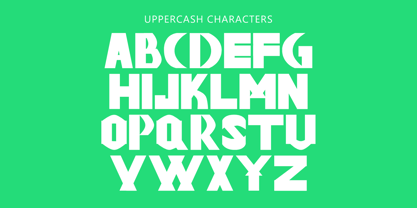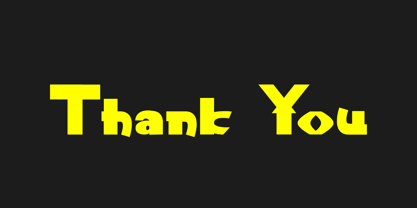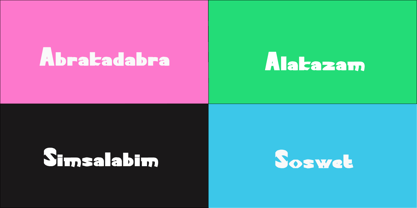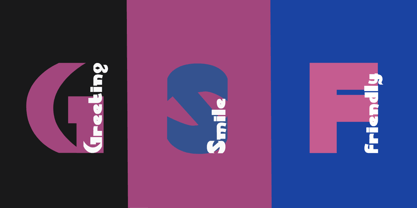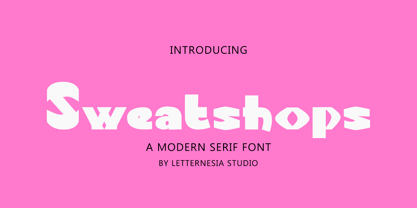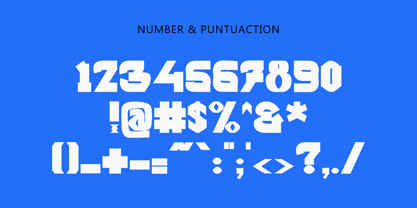
Sweatshops
von Letternesia studio
Die Schriftfamilie Sweatshops wurde von Ta Siyo entworfen und von Letternesia studio veröffentlicht. Sweatshops enthält 1 Stile.
Sweatshops is a gritty, bold typeface inspired by the harsh realities of industrial labor and underground manufacturing. With rugged lines, imperfect edges, and a raw, distressed aesthetic, this font brings an authentic, rebellious tone to posters, protest graphics, zines, and streetwear branding. Designed to make a statement, Sweatshops carries the weight of stories untold.
Designer: Ta Siyo
Herausgeber: Letternesia studio
Foundry: Letternesia studio